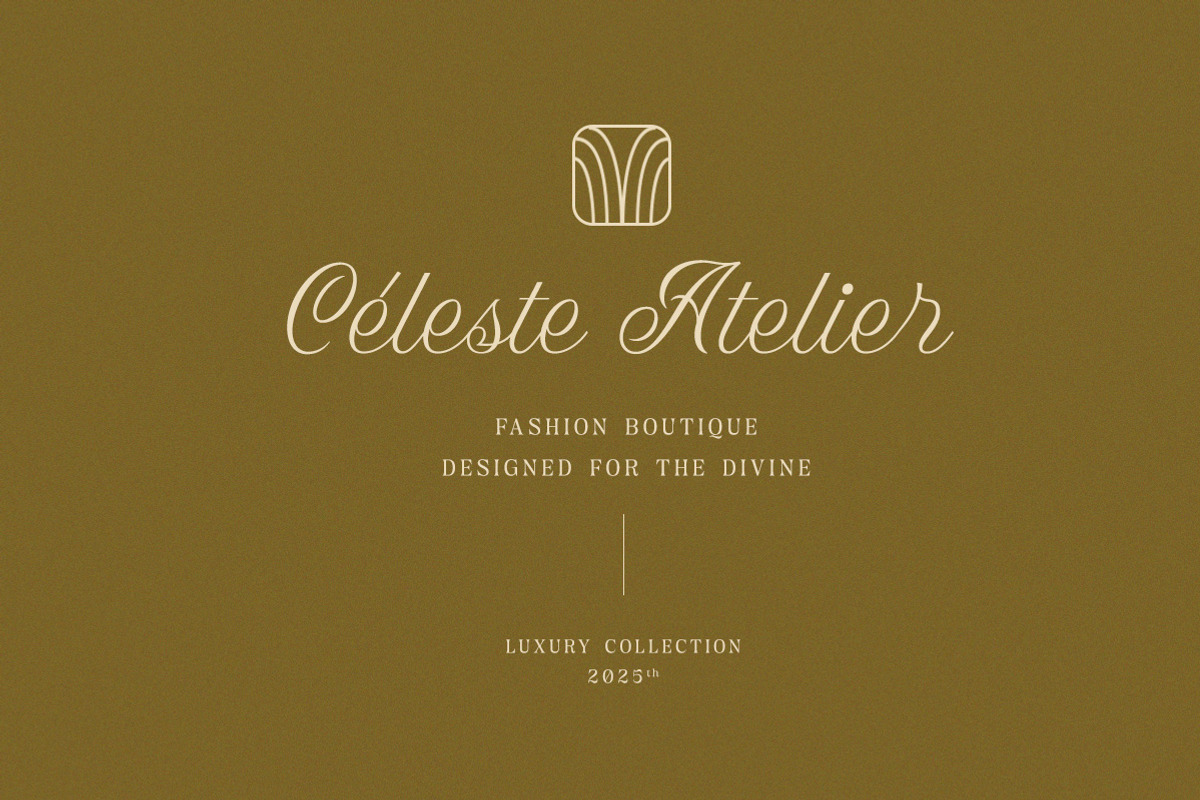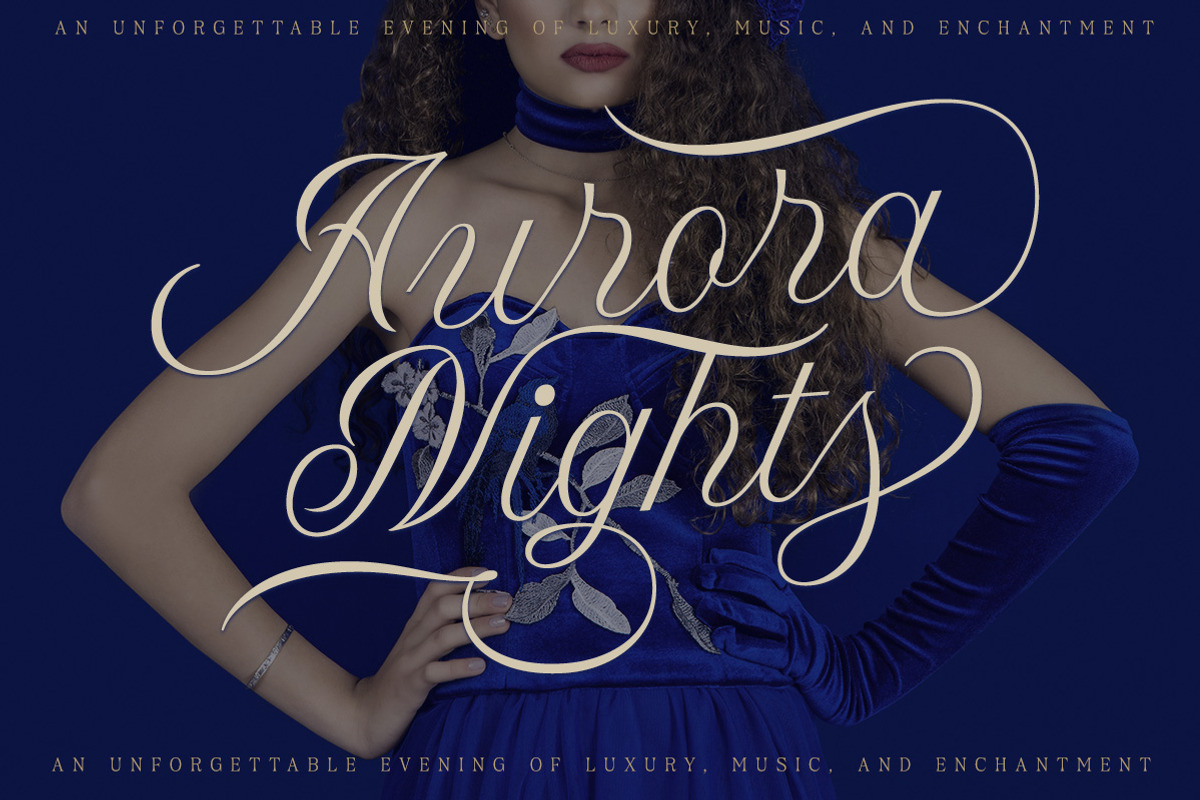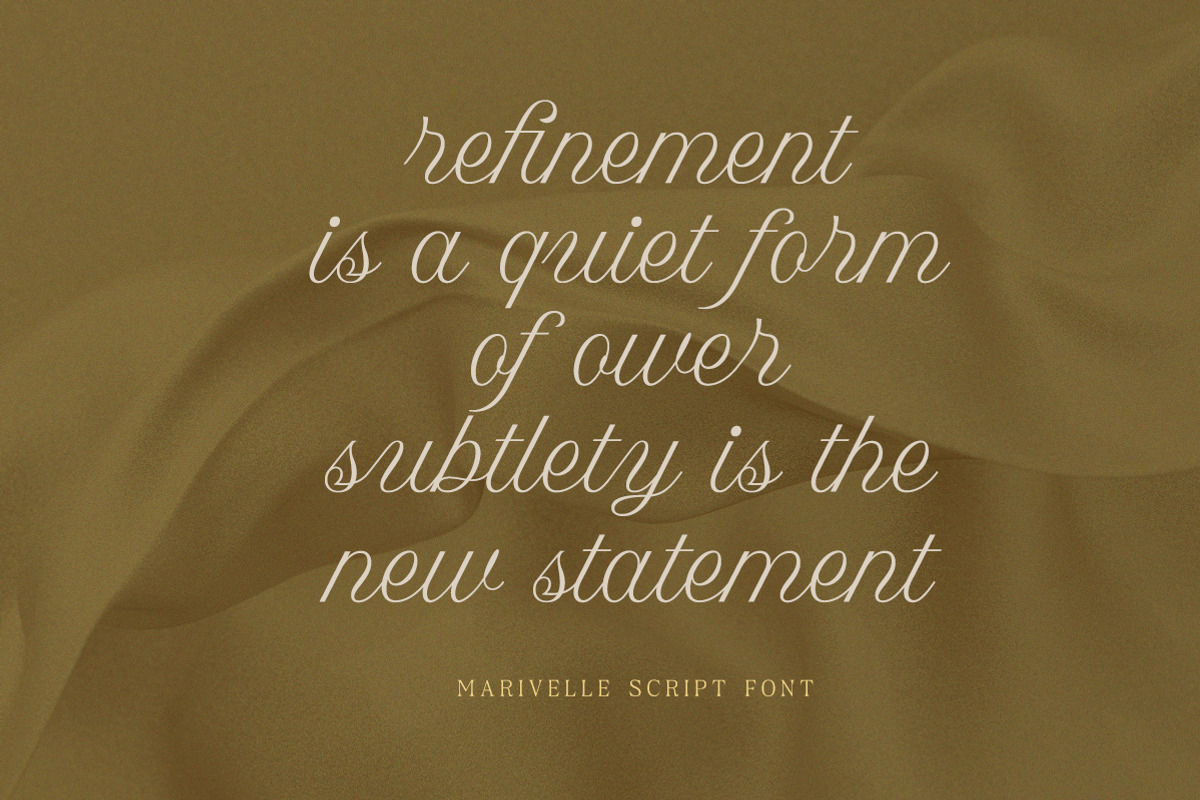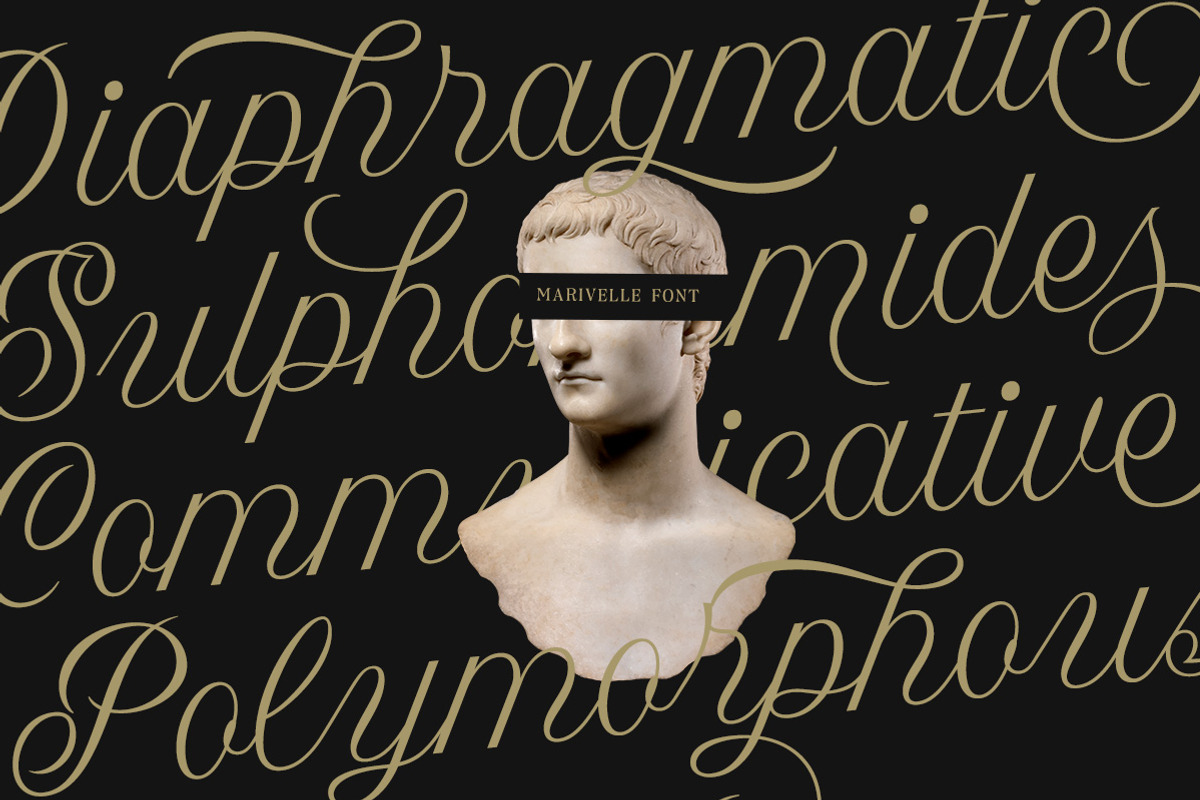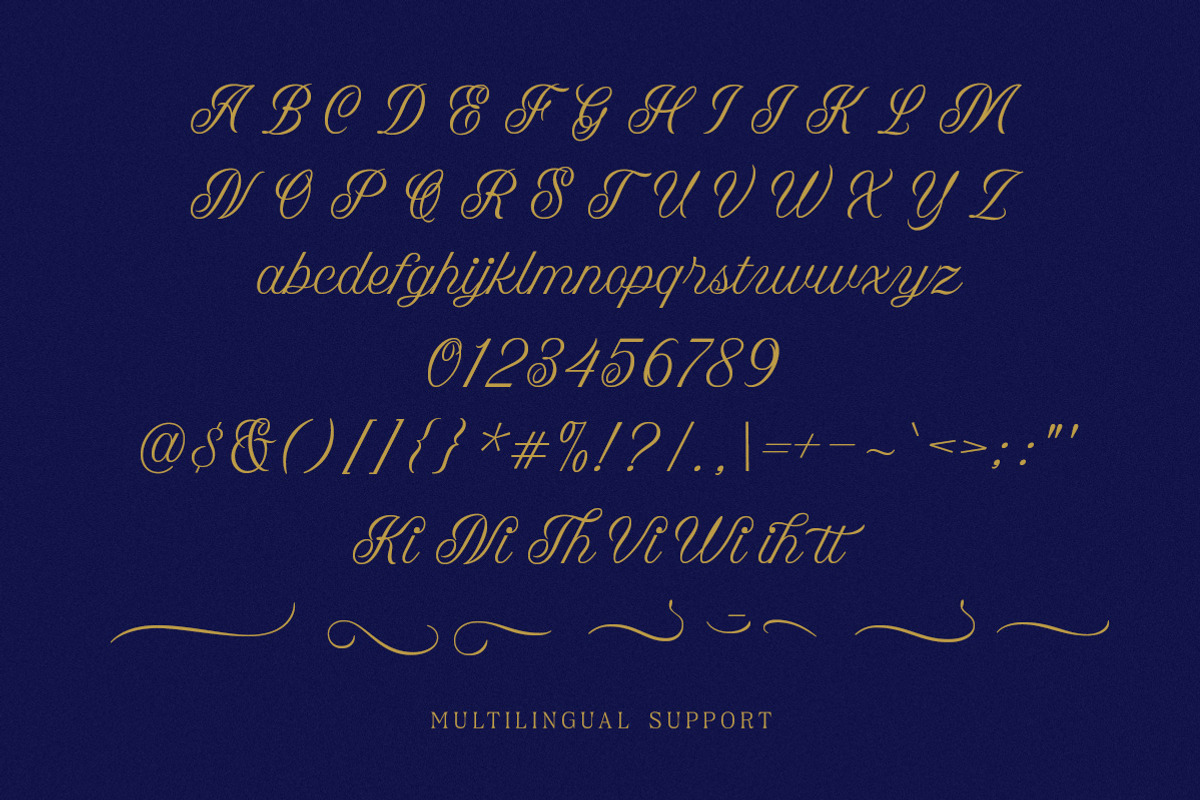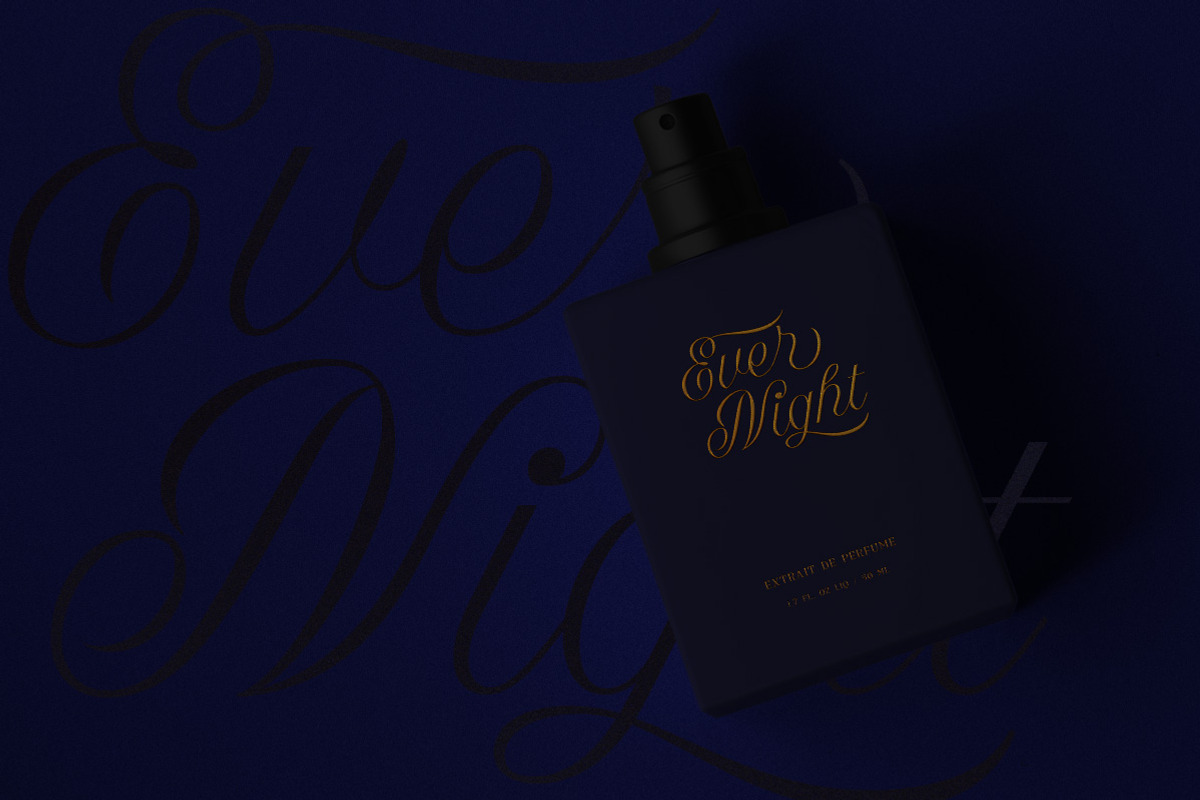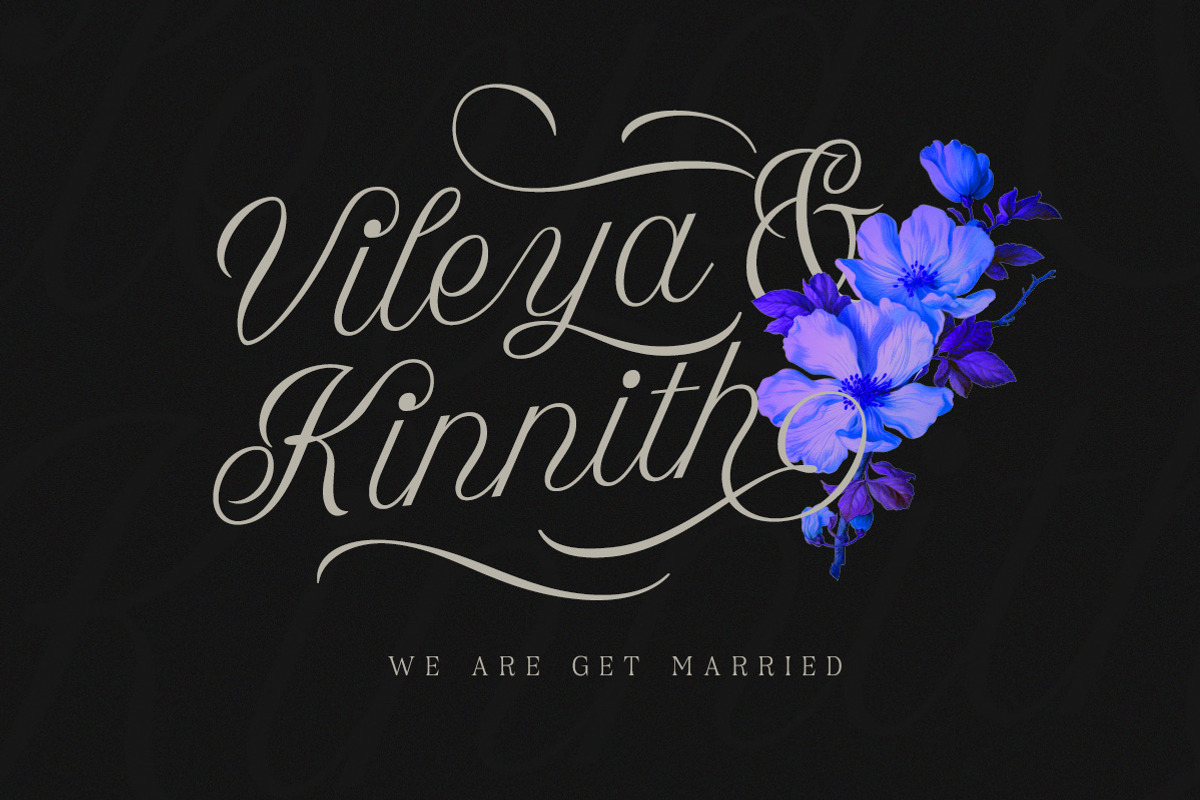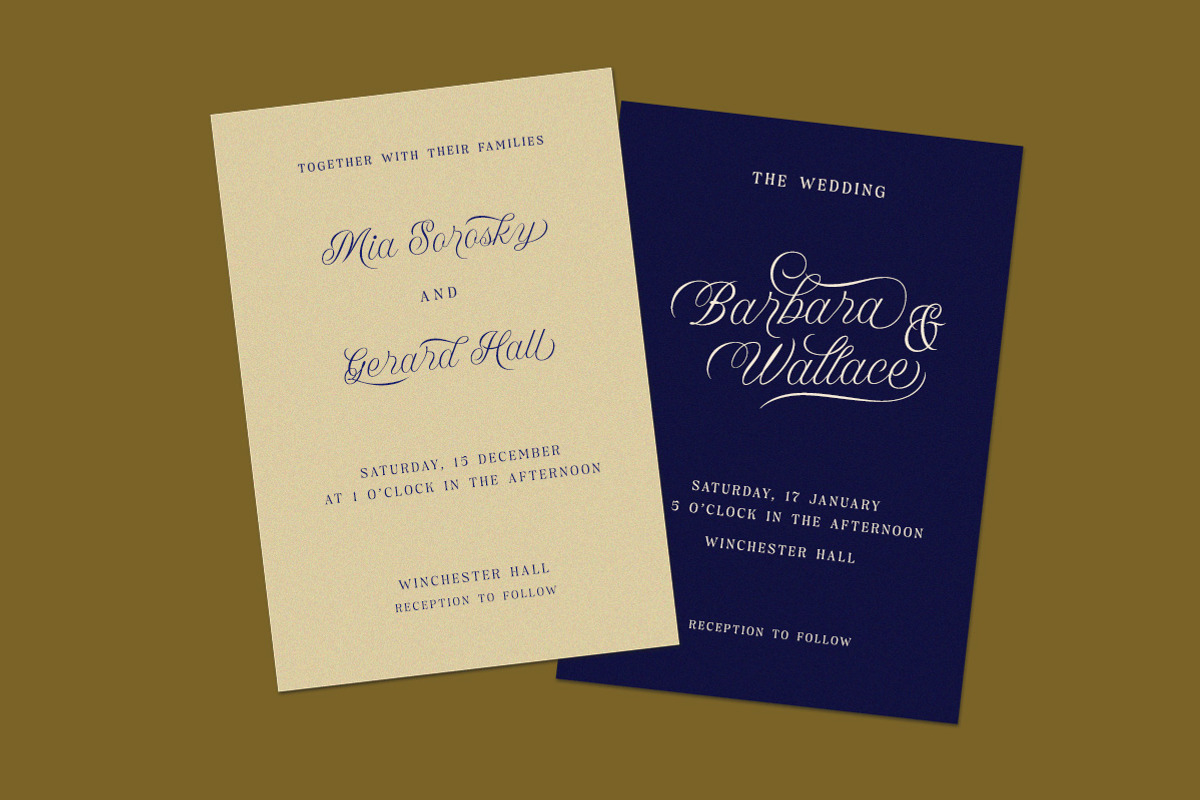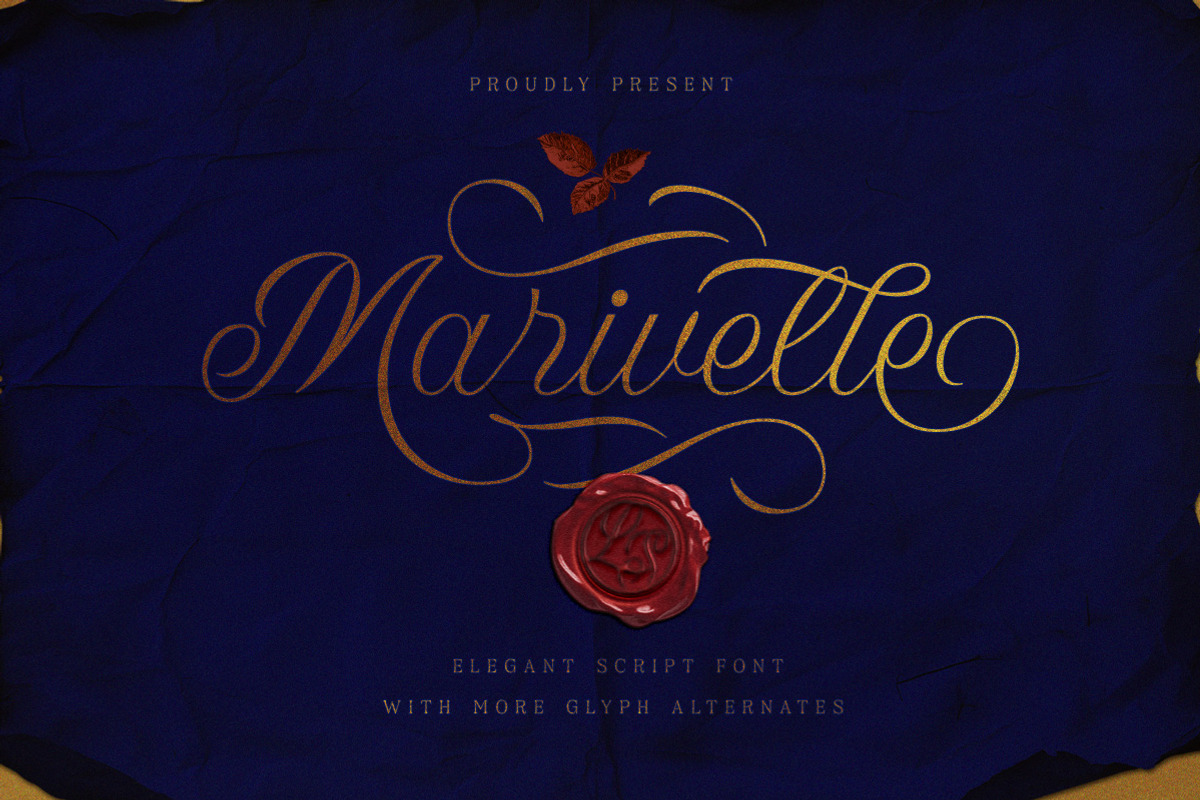
Marivelle Elegant Wedding Script
Marivelleis an elegant script font designed with graceful curves and refined swashes that bring a timeless sense of luxury. Its flowing strokes and stylish alternates make it perfect for wedding invitations, branding, stationery, packaging, and high-end logos.
- Alternate Characters